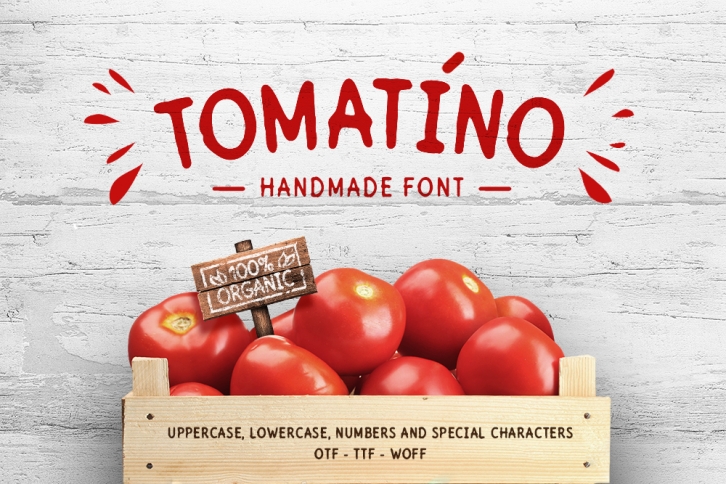
Tomatino. Handmade is a great font that was designed by Cosmic Store. Imagine the amount of combinations you can create using this font! The archive is 15.35 MB and it was released on February 28, 2019. Tomatino. Handmade looks beautiful on wedding invitations, greeting cards, logos, posters, labels, t-shirt designs, logos, business cards and is perfect for use in ink or watercolor works, fashion, magazines, packaging and food menus, children's books and more!